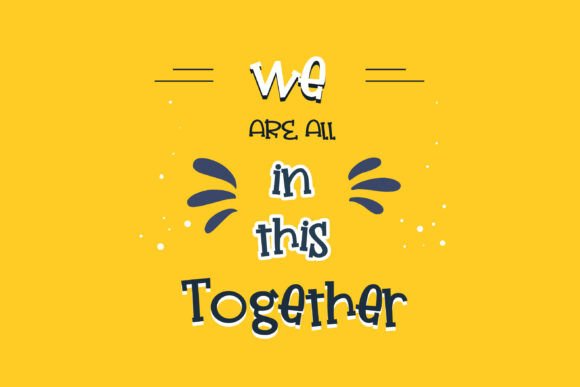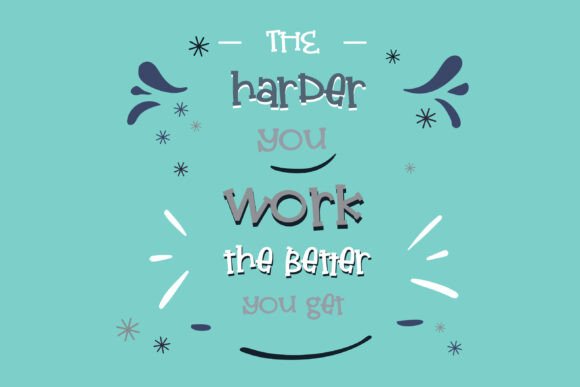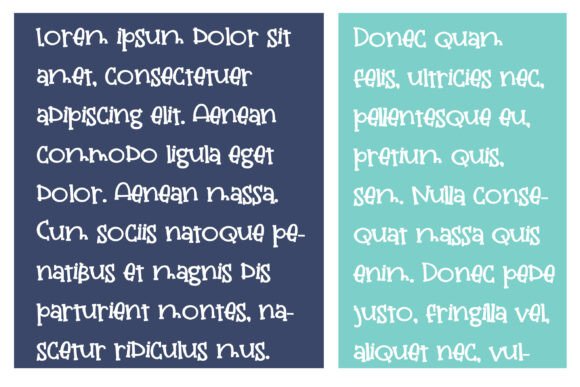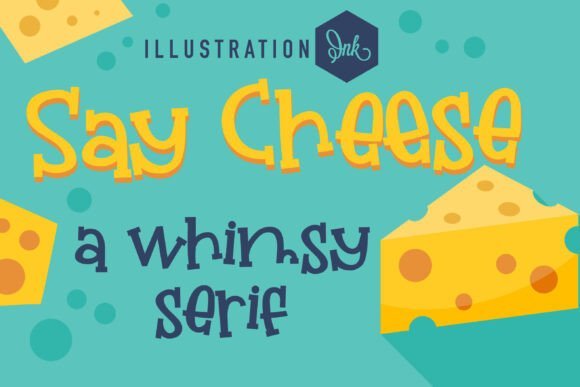
Introduction to Say Cheese Font
This hand-crafted font is a whimsical print with hand-crafted slab serifs throughout.
Bold version included A hand-crafted font is a font that is designed to look like it was written by hand.